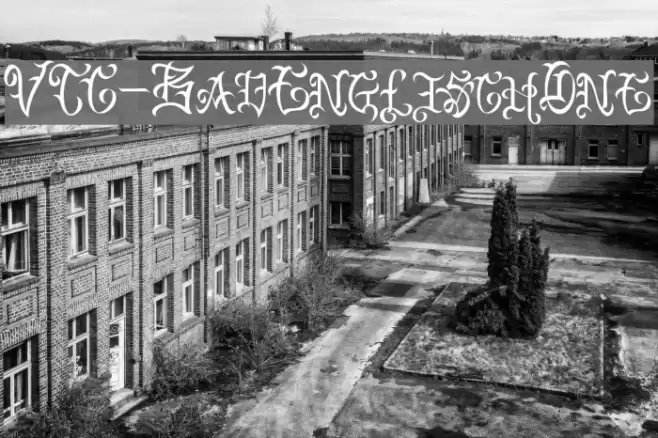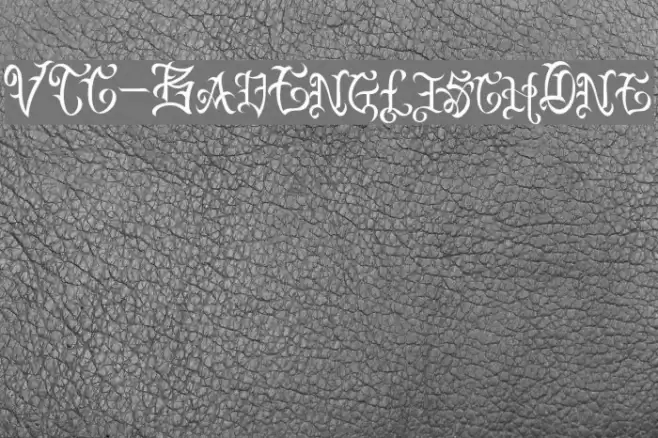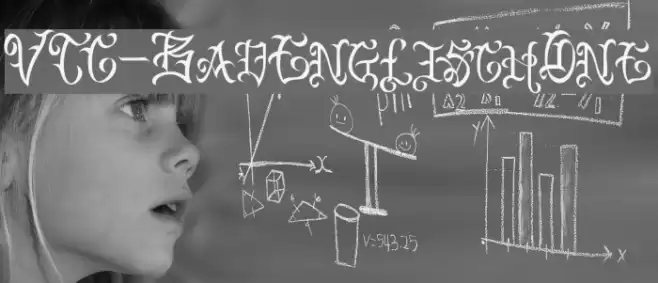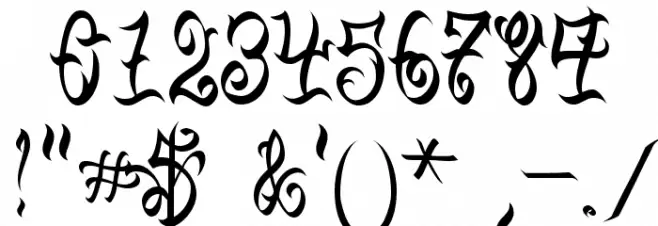
VTC-BadEnglischOne Font
VTC-BadEnglischOne Description
This font features an intricate and ornate design, reminiscent of Gothic or medieval calligraphy. Each character is adorned with elaborate flourishes and swirls, creating a highly decorative and artistic appearance. The uppercase letters are particularly striking, with their bold, sweeping curves and intricate detailing. The lowercase letters maintain the same level of ornamentation, ensuring consistency throughout the typeface. The numbers and special characters are equally embellished, making this font ideal for projects that require a dramatic and eye-catching style.
An ornate, Gothic-inspired font with intricate flourishes from Uncategorized fonts.